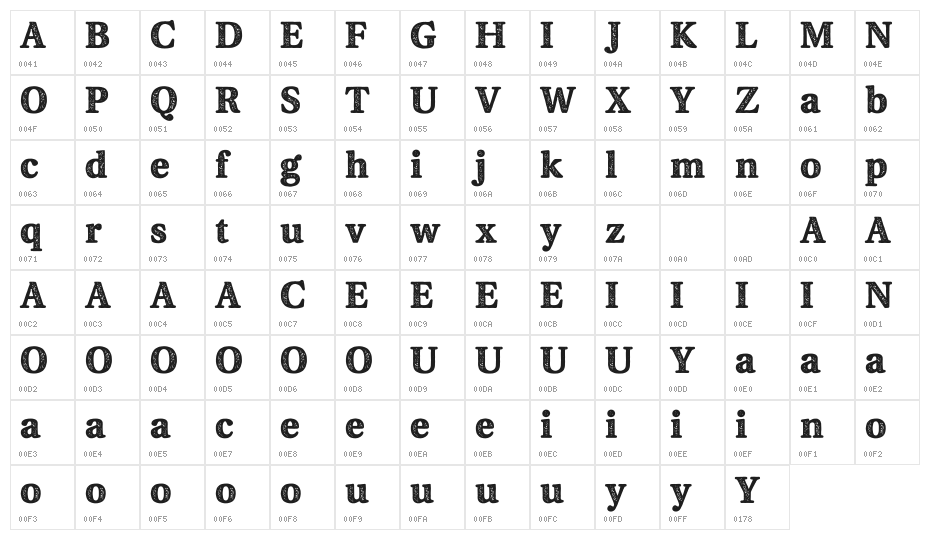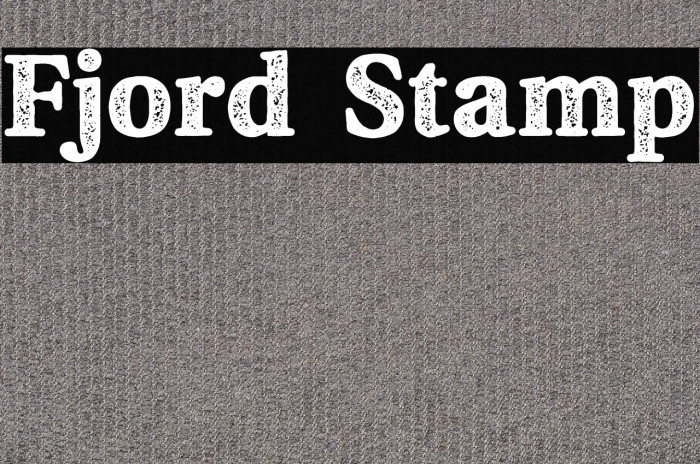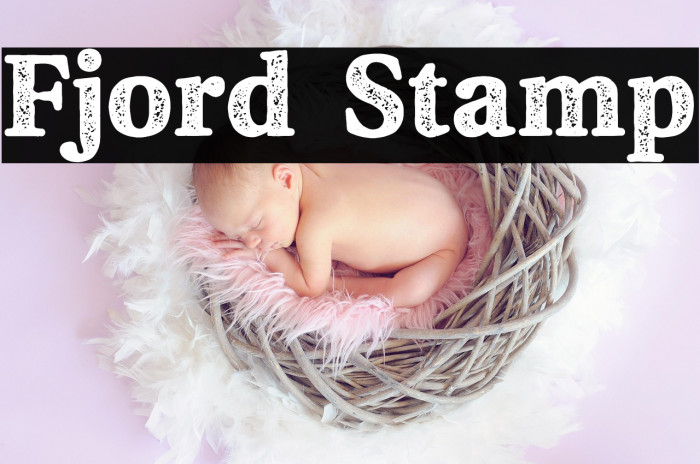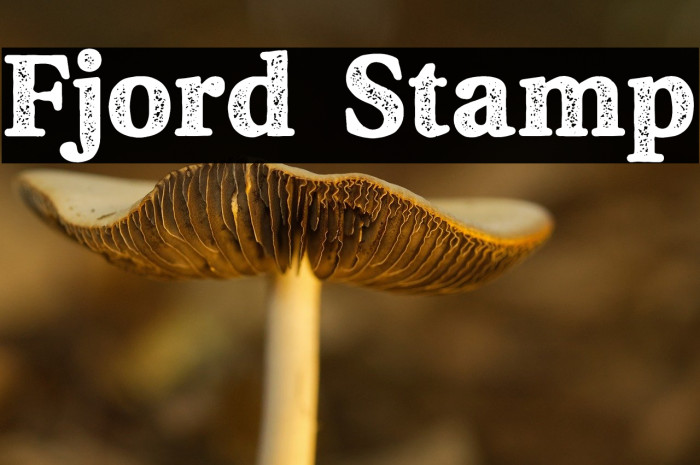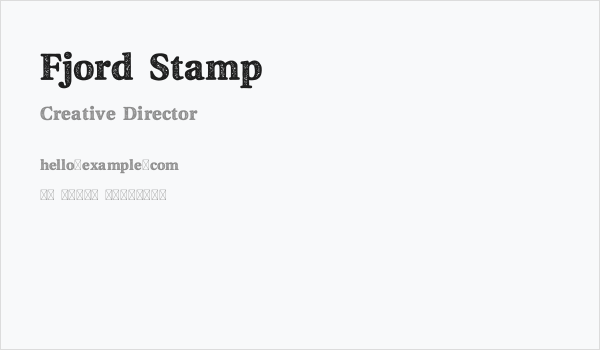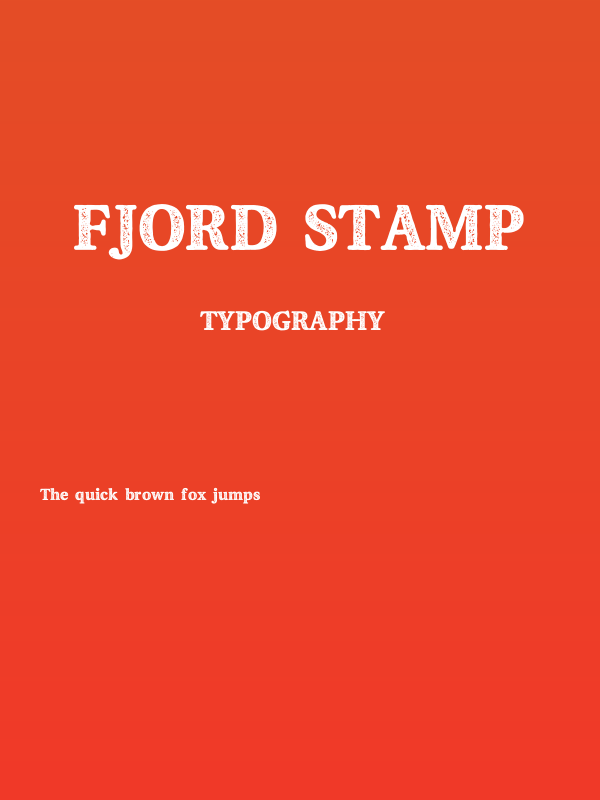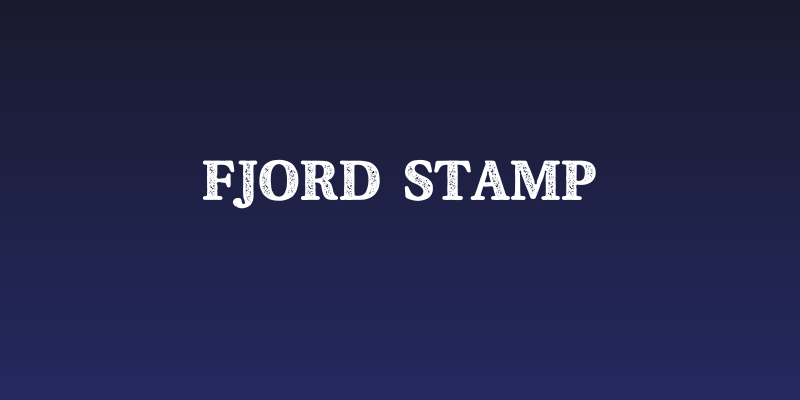
Fjord Stamp Font
Fjord Stamp Description
This font features a bold, textured style reminiscent of vintage rubber stamps. The uppercase and lowercase letters have a distressed appearance, adding a rustic and handcrafted feel. The characters are well-defined with a consistent weight, making them stand out prominently. The texture gives it a unique personality, suitable for projects that require a touch of nostalgia or a handcrafted aesthetic. The font maintains a classic serif structure, which enhances its readability while adding a decorative flair.